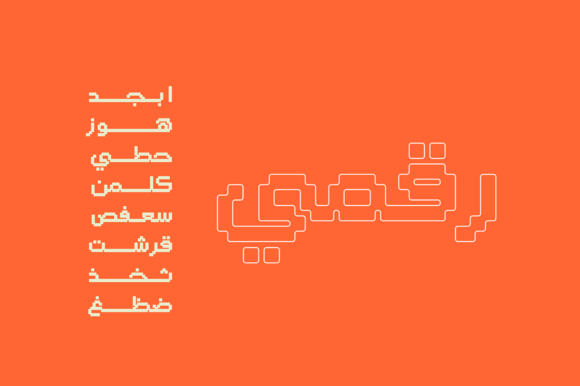
Step into the realm of digital aesthetics with Raqami Font, where pixels dance harmoniously to create a modern masterpiece. Inspired by the vast expanse of the digital world, Raqami embodies the essence of typography, transforming your designs into captivating expressions of art.
Immerse yourself in the intricate details of Raqami, meticulously crafted to deliver a pixelated charm that is both visually striking and effortlessly stylish. This Arabic display font is a celebration of digital artistry, seamlessly blending the traditional and the contemporary.
With Raqami as your creative companion, embark on a journey of limitless possibilities. Its pixelated elegance adds a touch of whimsical charm to print advertising, leaving a lasting impression on your audience. Unleash your creativity on the web, where Raqami's digital allure shines through, transforming your online presence into a captivating symphony of pixels.
Raqami's true beauty lies in its versatility. It effortlessly adapts to a myriad of design endeavors, from posters that demand attention to social media posts that spark engagement. Its unique character adds depth and intrigue to branding initiatives, making your mark in the digital realm unforgettable.
But Raqami is more than just a font; it's an experience. It's the fusion of tradition and innovation, the marriage of art and technology. With Raqami, you possess the power to transcend boundaries, to captivate audiences, and to leave an indelible mark on the digital landscape.
So, embrace the digital charm of Raqami Font today. Let your designs dance to the rhythm of pixels, and elevate your creativity to new heights. The digital world awaits your artistic touch – let Raqami be your guide.